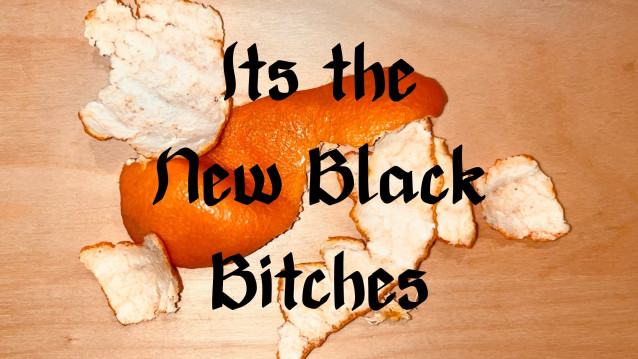
The New Black Font is a cool, bold and thick lettered blackletter font. You can use it for various projects, such as blog posts, logos, branding, ads, invitations, greeting cards, planners, photo albums, decorations, and much more
| Classification: | Blackletter / Gothic Fonts |